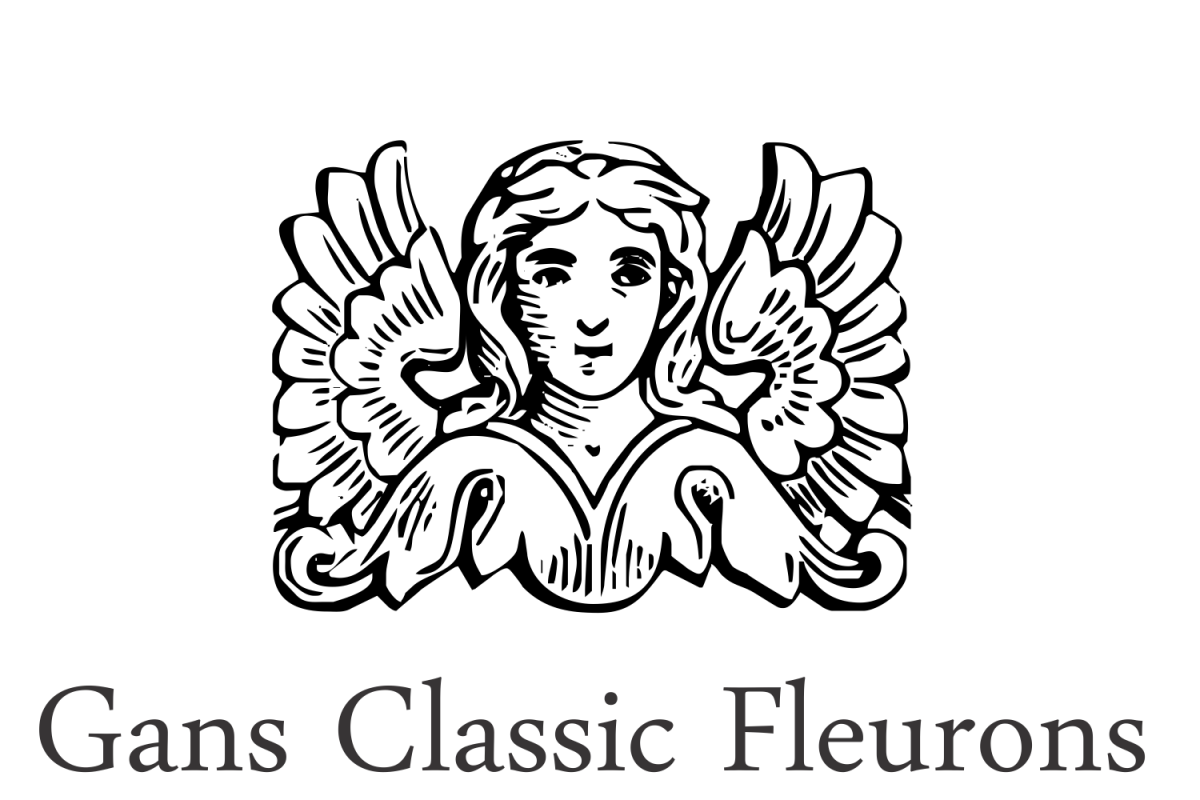
Gans Classic Fleurons
A dingbat/decorative display font featuring many different styles of flourishes and ornaments. Great for a vintage antique feel.